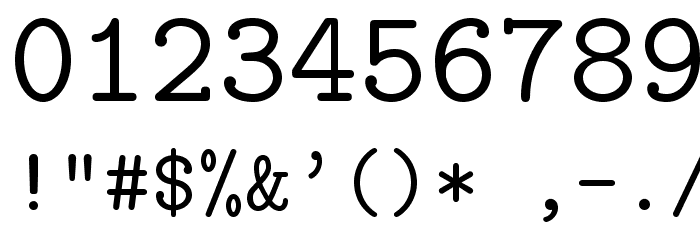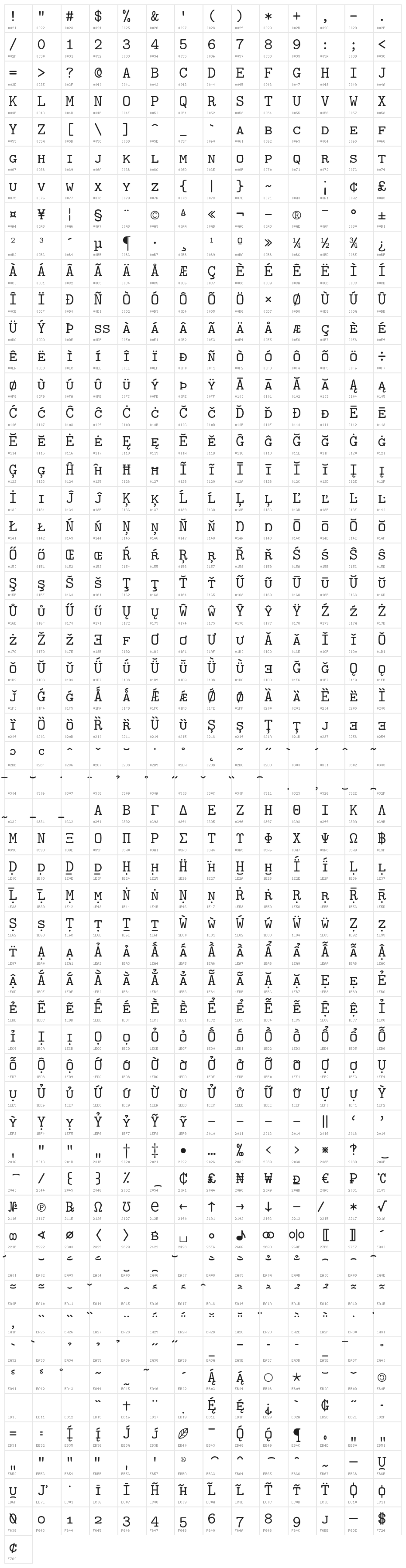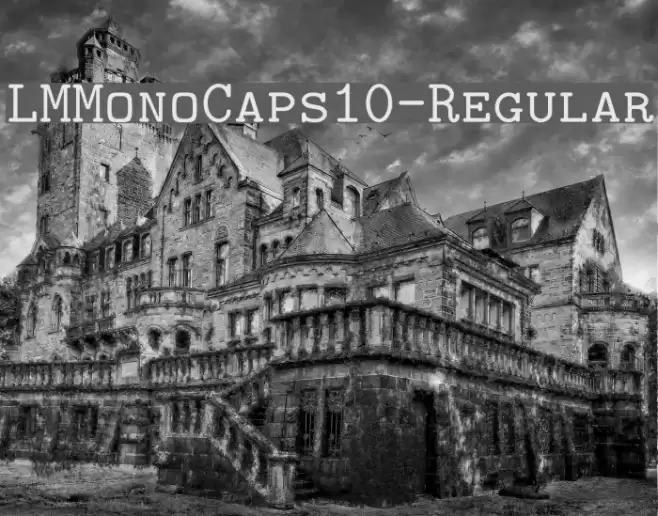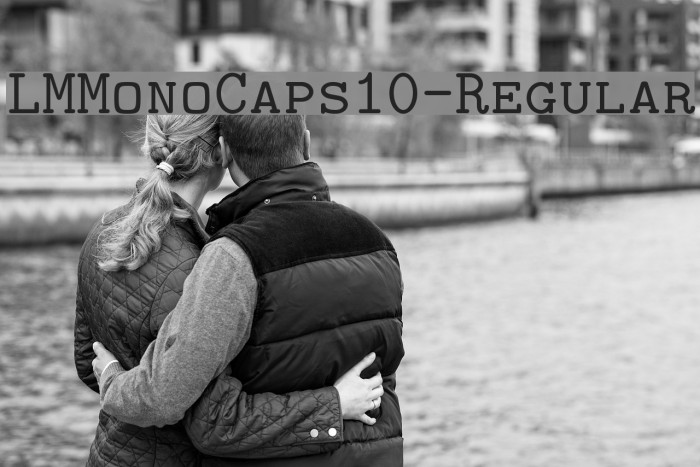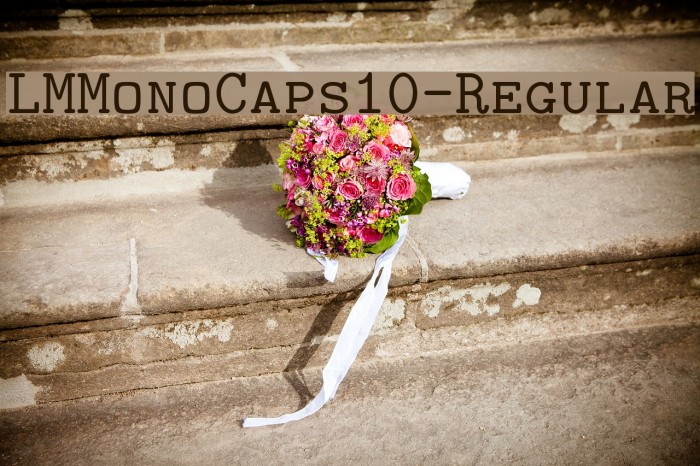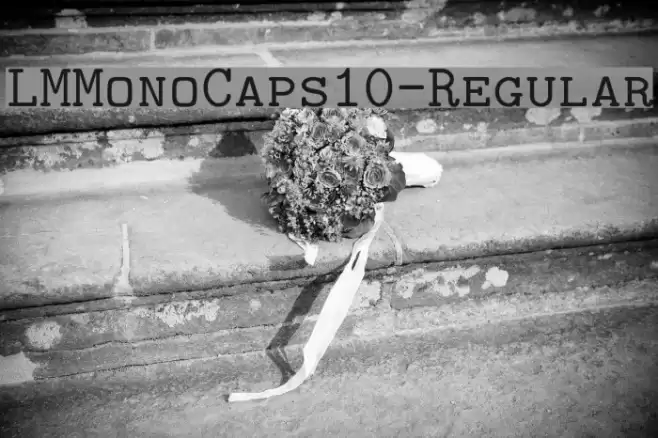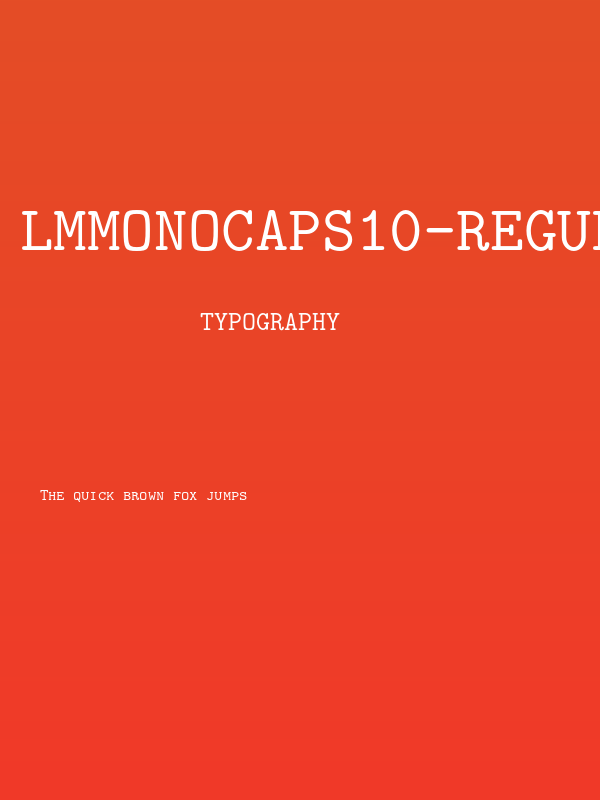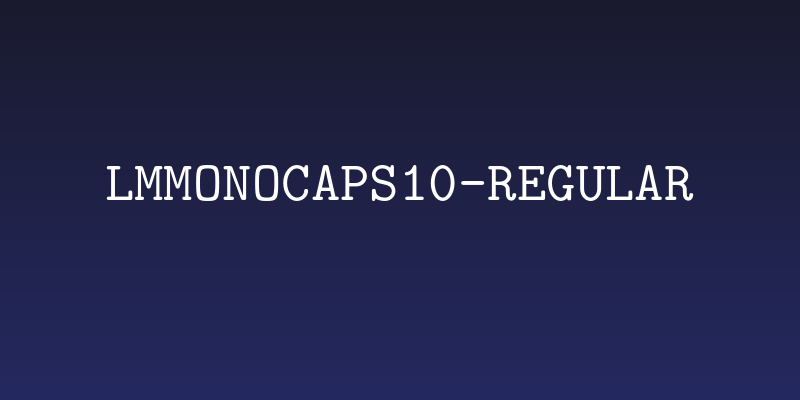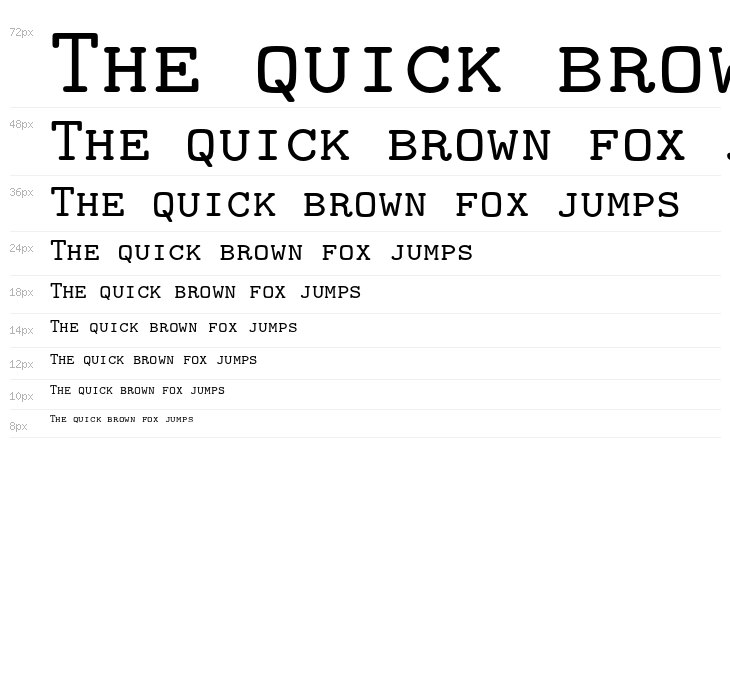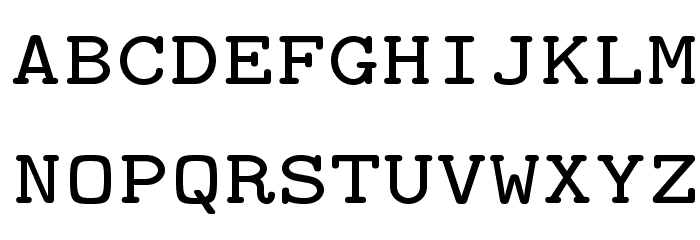
LMMonoCaps10-Regular Font
LMMonoCaps10-Regular Description
This typeface features a monospaced design with a clean and structured appearance. Each character is uniformly spaced, providing a consistent and orderly look. The font includes both uppercase and lowercase letters, numerals, and a variety of special characters. The strokes are even and moderately thick, offering a medium contrast that enhances readability. Its design is straightforward and functional, making it suitable for environments where clarity and precision are paramount. The overall style is modern with a hint of classic typewriter aesthetics, which adds a touch of nostalgia while maintaining a contemporary feel.
| Use Case | Coding, Technical documentation, Typewriter-style projects |
| Proposed Projects | Ideal for coding environments, technical documentation, and any project requiring precise alignment. |